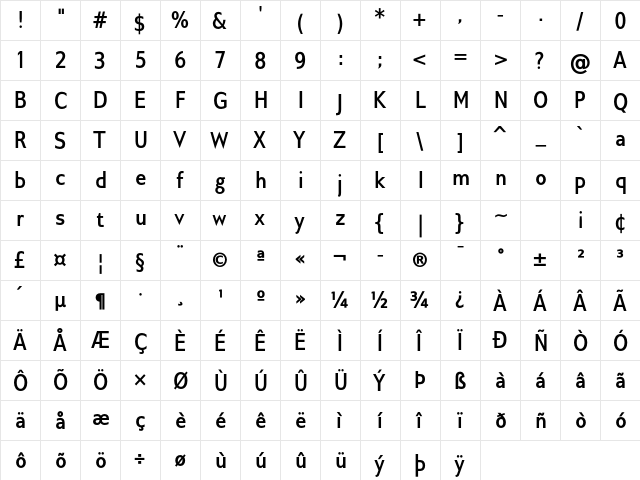
Gillius ADF Cond Bold
| Foundry | Arkandis Digital Foundry. |
| Designer | Hirwen HARENDAL |
Design Context for Gillius ADF Cond Typeface
Gillius ADF Cond is a composed and adaptable typeface that performs quietly and consistently across a wide range of design contexts. The heavy weight commands attention and anchors typographic hierarchies. The condensed width makes it efficient for tight spaces without sacrificing legibility.